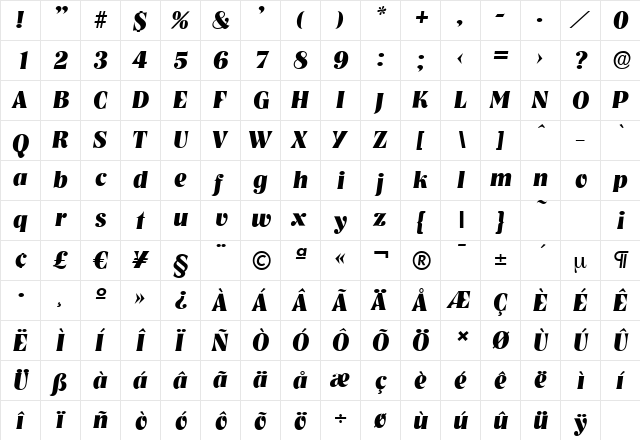
NashvilleSerial-Xbold Italic
Design Context for NashvilleSerial-Xbold Typeface
NashvilleSerial-Xbold is a composed and adaptable typeface that performs quietly and consistently across a wide range of design contexts. The dynamic lean of this cut emphasises speed and emphasis in any layout. The heavy weight commands attention and anchors typographic hierarchies.
Pro Tip: Use NashvilleSerial-Xbold for emphasis, pull quotes, and subheadings where its slanted energy can add rhythm to the layout.